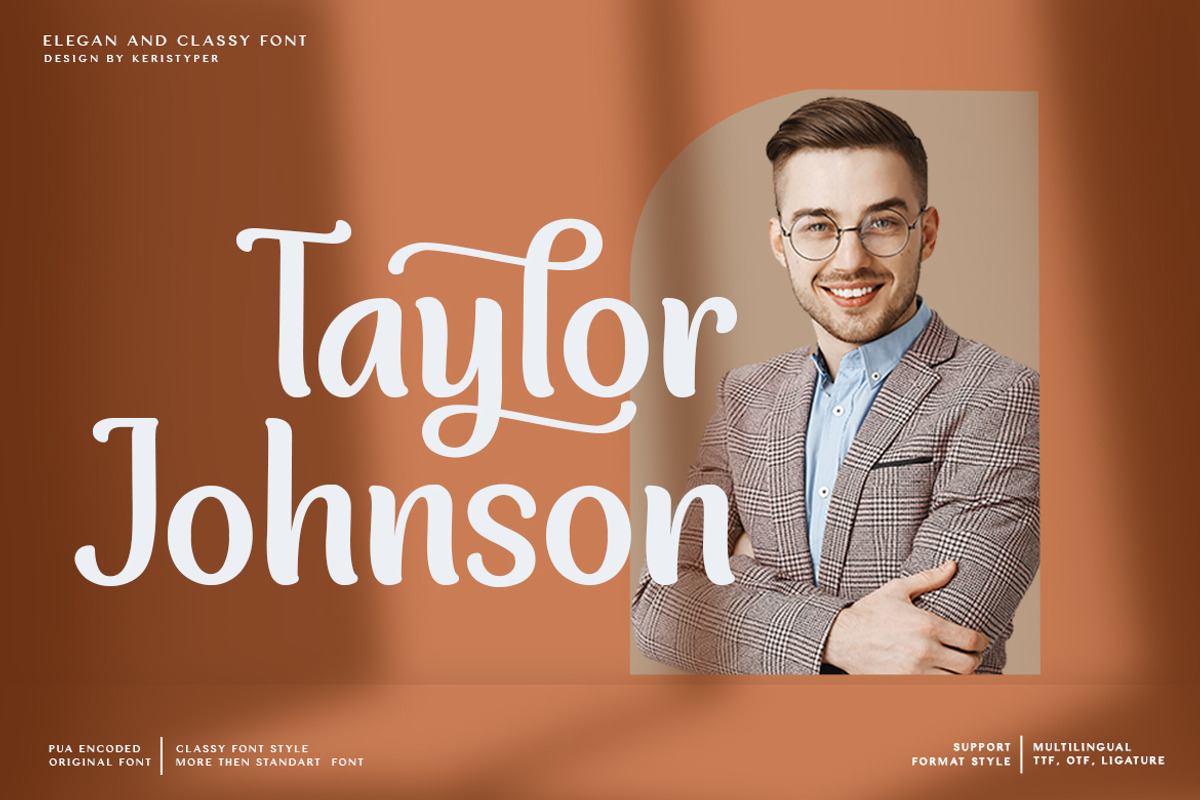
Add a personal and sophisticated touch to your designs with Taylor Johnson Font Free Download. This elegant signature-style script font features smooth strokes and natural handwriting flow, making it perfect for logos, personal branding, wedding invitations, social media content, and upscale product packaging.
Taylor Johnson captures the charm of modern calligraphy with a clean and refined look. It includes uppercase and lowercase letters, punctuation, and ligatures—giving designers plenty of flexibility for testing compositions and typography layouts.
Whether you're crafting a fashion label or a heartfelt greeting card, this font brings an air of elegance and authenticity. For any commercial use, be sure to acquire the correct license. Download Taylor Johnson Font Free Download today and elevate your designs with stylish handwritten flair.